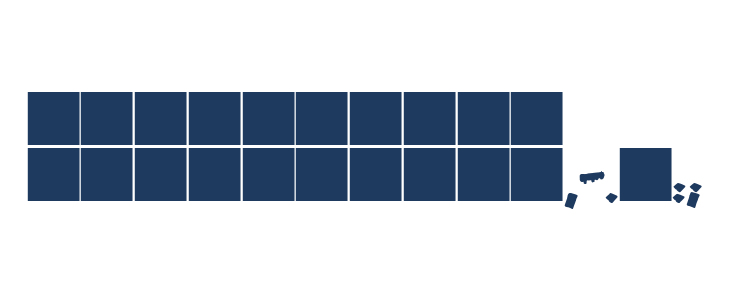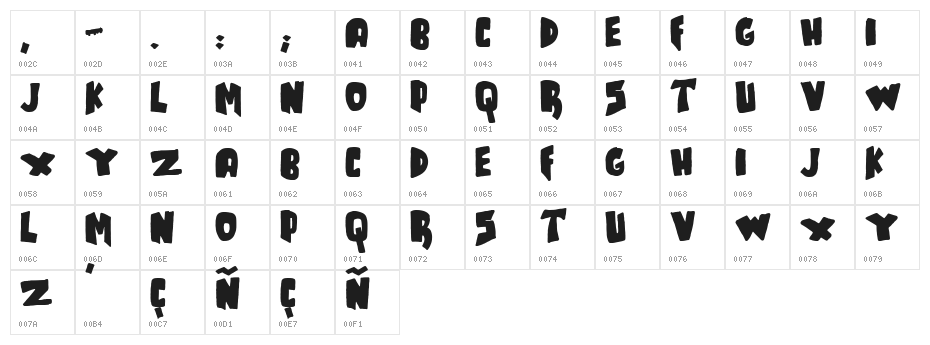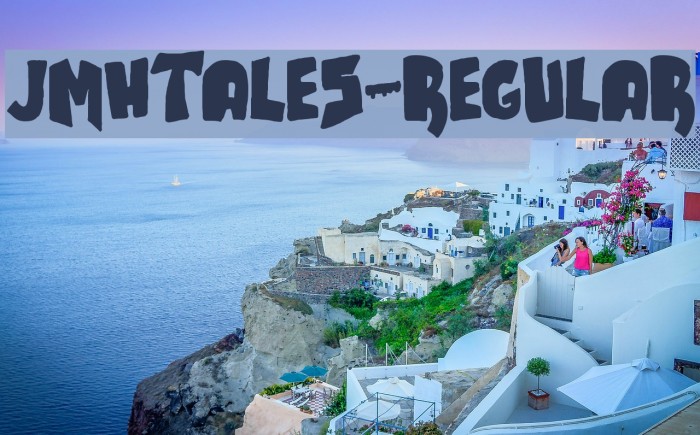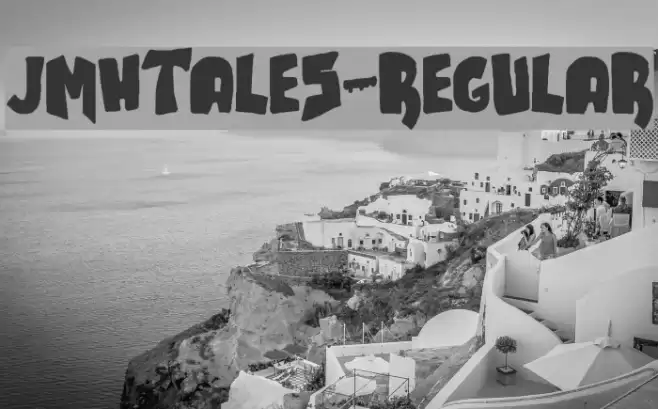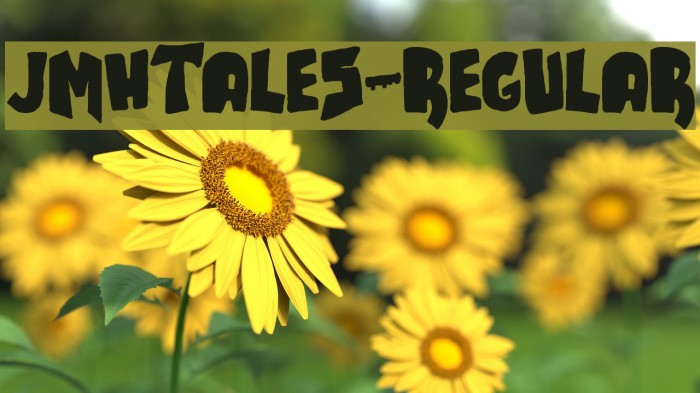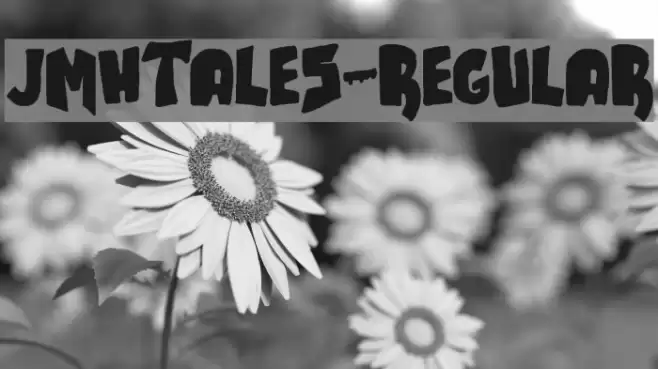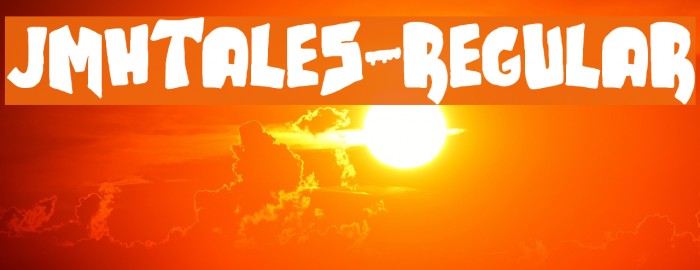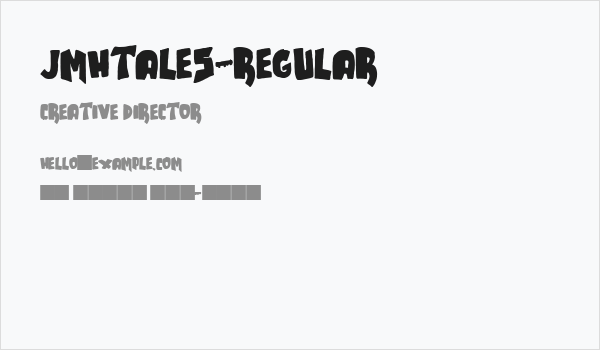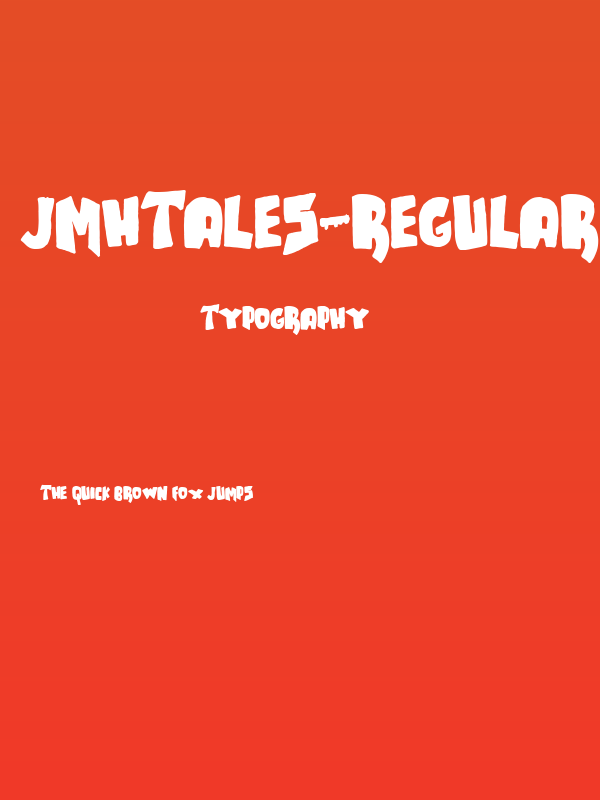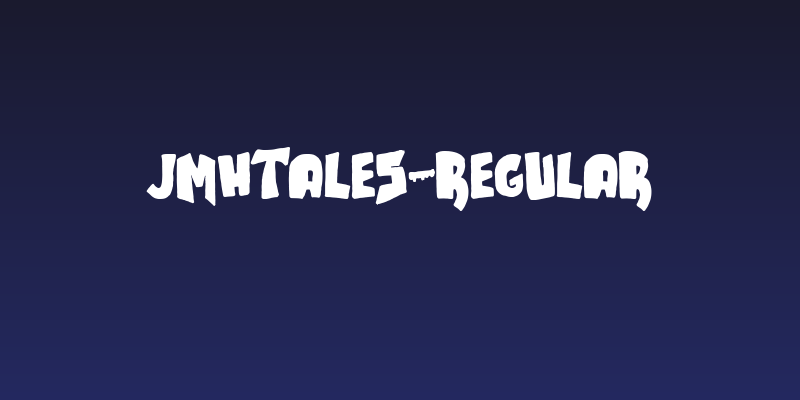
JMHTALES-Regular Font
JMHTALES-Regular Description
This font features a bold and dramatic style with thick, uneven strokes that give it a hand-drawn, graffiti-like appearance. The characters are highly stylized, with exaggerated curves and angles that create a sense of movement and energy. The uppercase letters are particularly striking, with their heavy weight and distinctive shapes. The lowercase letters maintain the same boldness, ensuring consistency across the typeface. Numbers and special characters are equally bold, fitting seamlessly with the overall aesthetic. This font is perfect for projects that require a strong visual impact and a touch of urban flair.
| Overall Style | Urban, Graffiti, Bold |
| Proposed Projects | Ideal for street art designs, music album covers, posters, and urban-themed branding. |